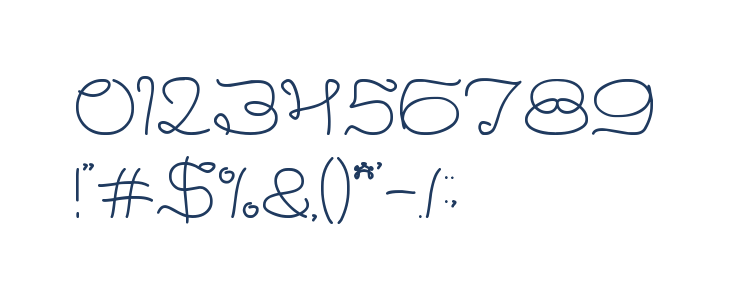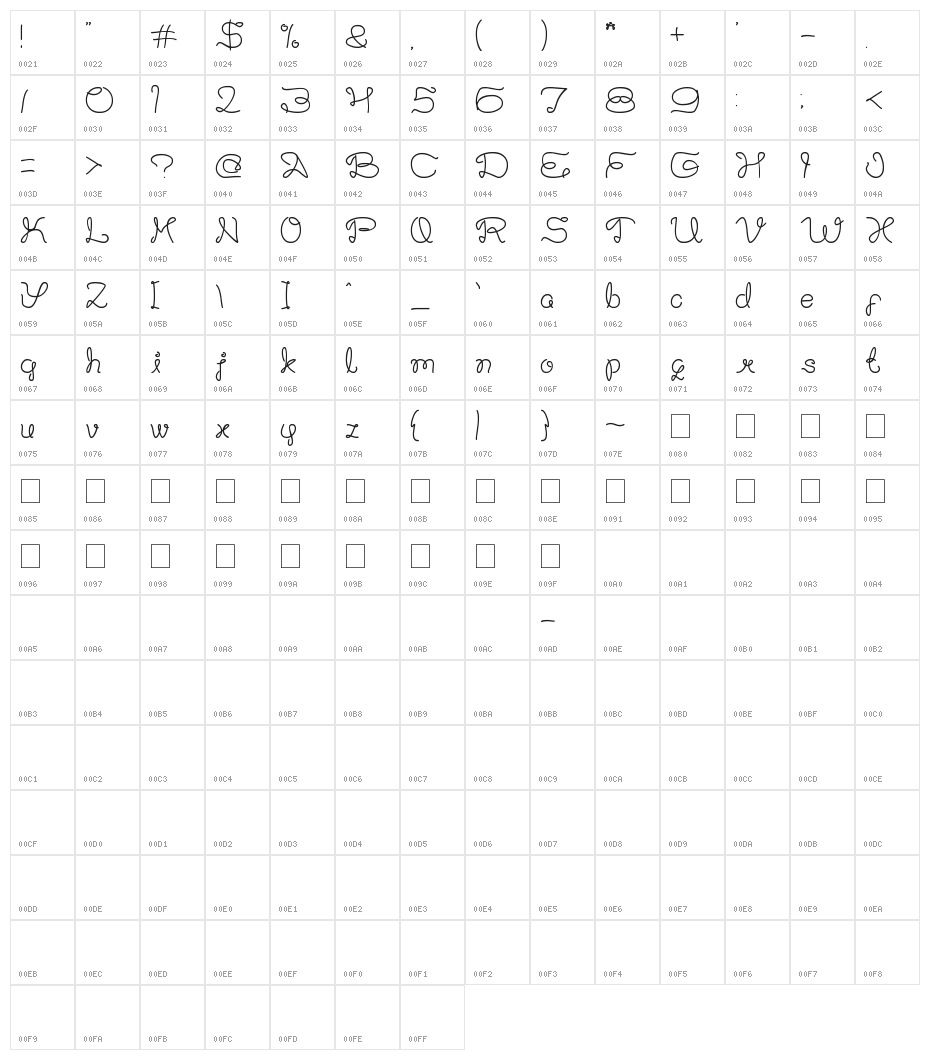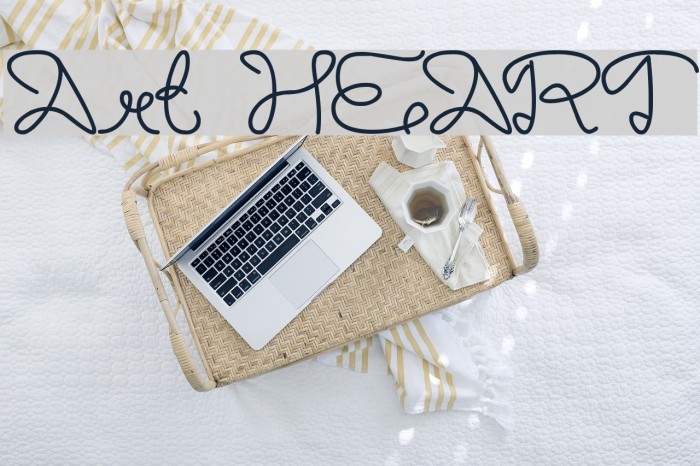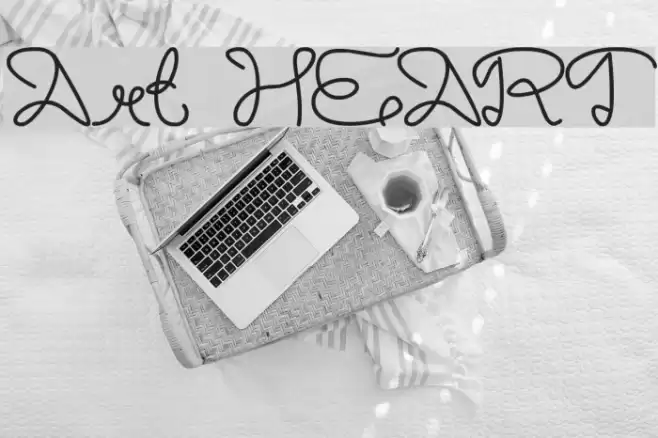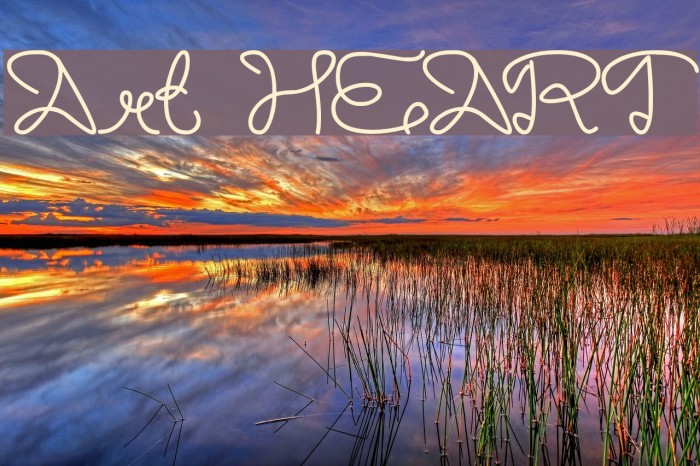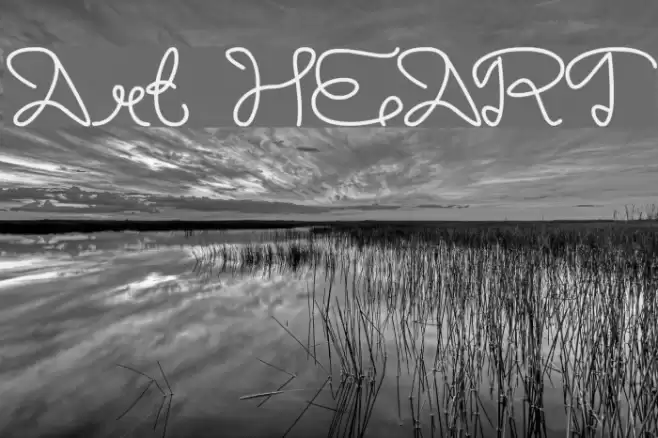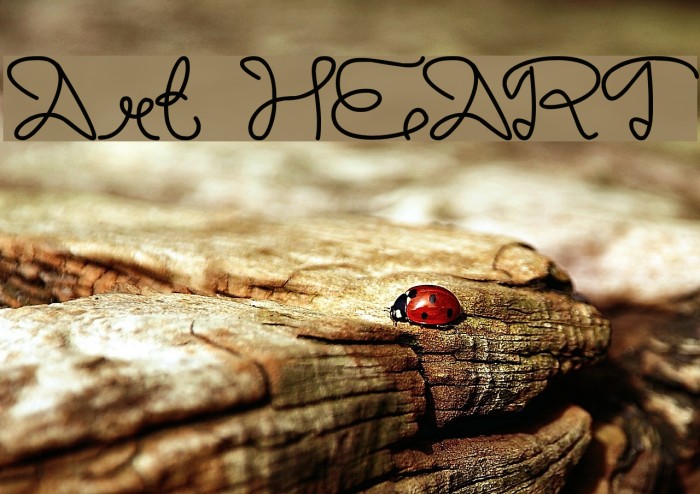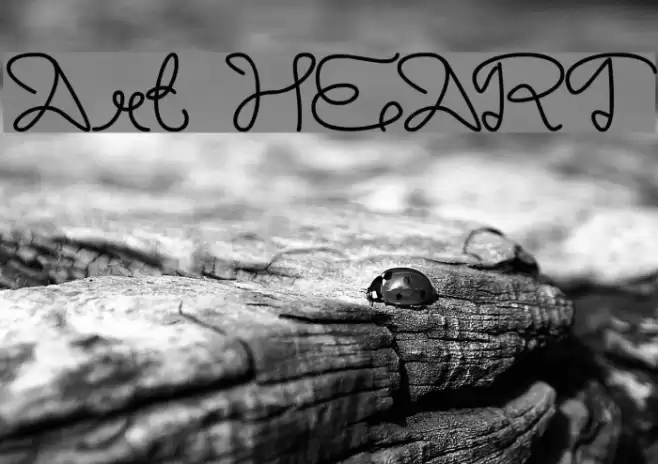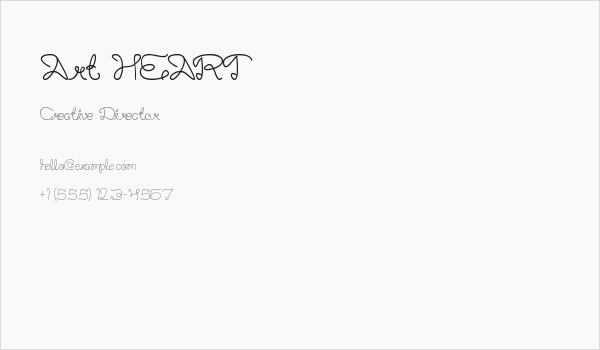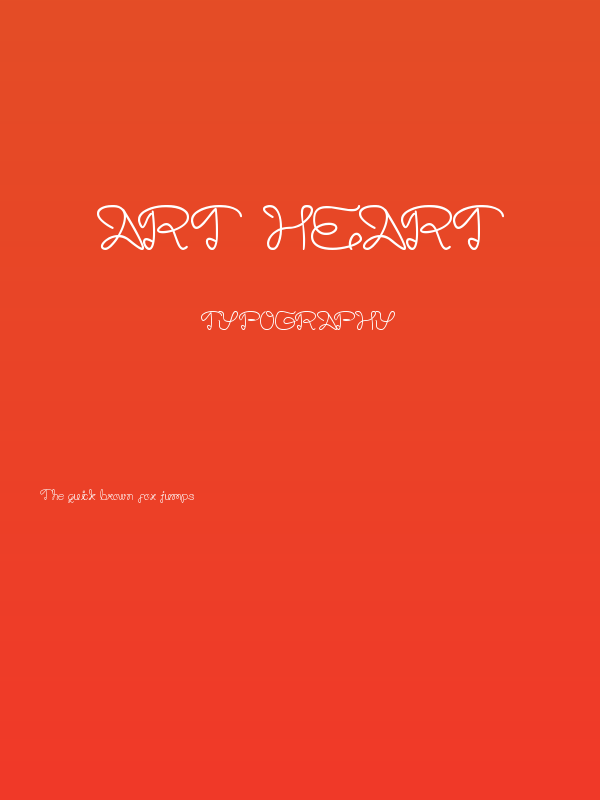
Art HEART Font
Art HEART Description
This font features a whimsical and artistic design, characterized by its flowing, interconnected strokes that create a sense of movement and elegance. The letters are crafted with a playful looped style, giving them a unique and decorative appearance. The uppercase and lowercase letters maintain a consistent style, with each character exhibiting a distinct personality while remaining cohesive as a set. The numerals and special characters are designed to match the overall aesthetic, ensuring a harmonious look across all text elements. This font's intricate details and creative flair make it ideal for projects that require a touch of artistry and individuality.
| Proposed Projects | Ideal for creative projects such as invitations, greeting cards, artistic branding, and decorative posters. |